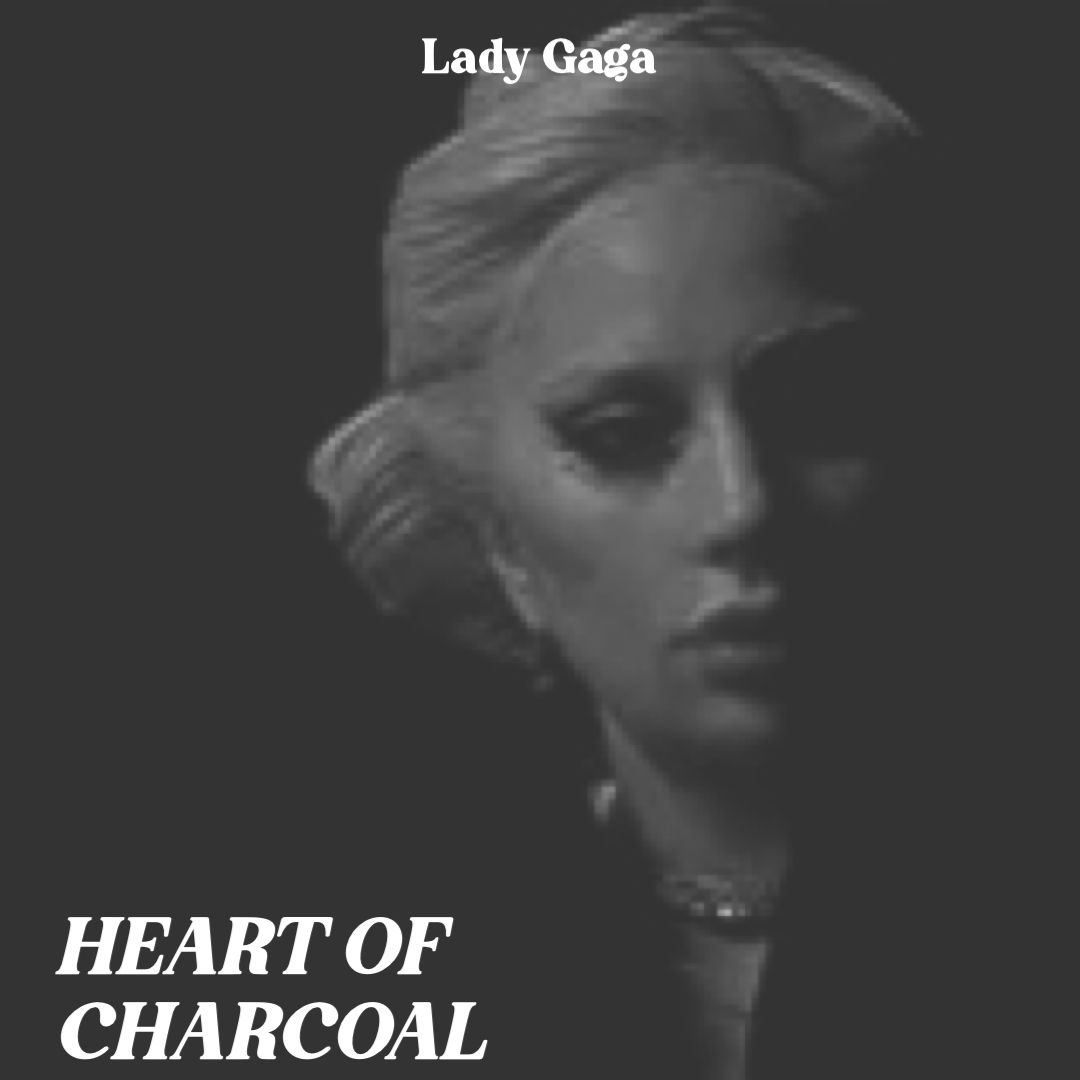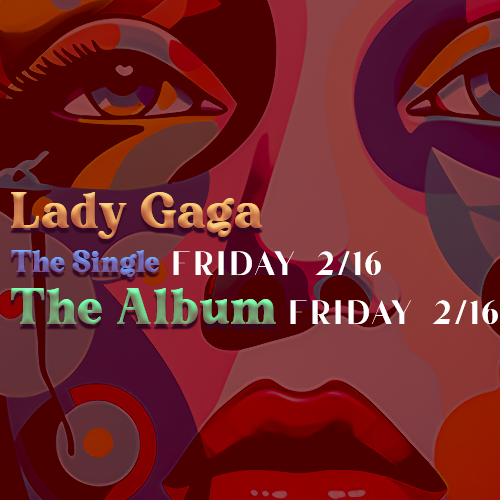
Bling 31,720 Posted February 14, 2024 Share Posted February 14, 2024 "The source code of Lady Gaga's official website has been changed recently. What catches the eye is the "Grand Royal" font being added to the system. We brought an example to give you an idea:" Are we moving EDIT: THE WAY WE NEVER FVCKING WIN Link to post Share on other sites More sharing options...
HelloHangoverz 17,452 Posted February 14, 2024 Share Posted February 14, 2024 We posted this at the same time, maybe that's why my link didn't embed But I'm living - if she's really going glam/punk/Bowie, then this font would fit the bill w that entire aesthetic. I am MOVING Availability is not weakness Link to post Share on other sites More sharing options...
Red 99,697 Posted February 14, 2024 Share Posted February 14, 2024 70s vibes If you see me posting like crazy, I'm either bored or procrastinating. Link to post Share on other sites More sharing options...
Bling 31,720 Posted February 14, 2024 Author Share Posted February 14, 2024 Just now, Ultimecia said: I am moving, I am girating, I am vibrating The font is serving Charcoal Demon Alien realness Henny Link to post Share on other sites More sharing options...
NymphetaGold 321 Posted February 14, 2024 Share Posted February 14, 2024 That's sooo rock n roll Spoiler country <3 Link to post Share on other sites More sharing options...
mamo 20,840 Posted February 14, 2024 Share Posted February 14, 2024 oh holy lord please save us!!! the fact we're moving over a font...brb I'm going to go overdose on some nurtec Ï could be your girlfriend for the weekend... Link to post Share on other sites More sharing options...
Chromamama 329 Posted February 14, 2024 Share Posted February 14, 2024 4 minutes ago, BlingNotTheMusic said: "The source code of Lady Gaga's official website has been changed recently. What catches the eye is the "Grand Royal" font being added to the system. We brought an example to give you an idea:" Are we moving Looks like a burger king advert Link to post Share on other sites More sharing options...
Plastic Flower 5,594 Posted February 14, 2024 Share Posted February 14, 2024 Now make a single cover for Heart of Charcoal using this font. Drop it Link to post Share on other sites More sharing options...